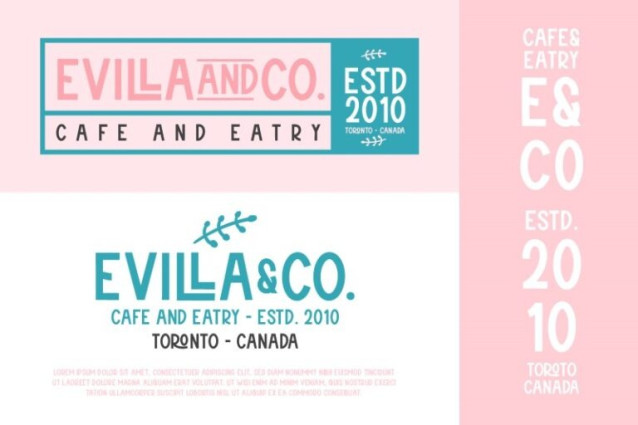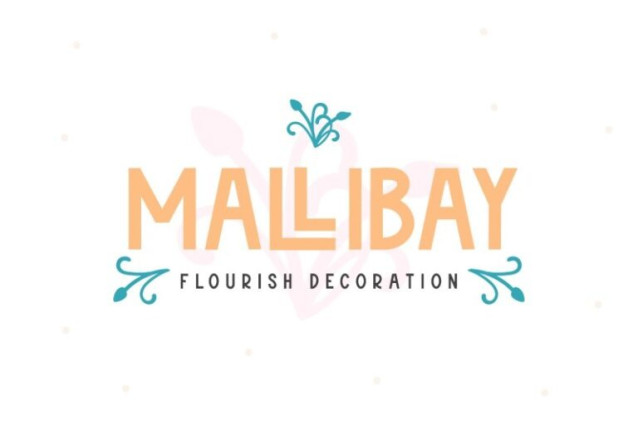
Embrown Font
Embrown Font is a vibrant sans-serif font that brings a sense of fun and energy to your designs. Embrown stands out with its playful style, injecting a sense of fun and whimsy into every letter. What sets it apart are the extra ornaments that can add a delightful touch of personality and charm. In addition, enjoy the features here.
Embrown fits in headlines, logos, posters, flyers, branding materials, print media, editorial layouts, and many more designs. Find out more ways to use this font by taking a look at the font preview.